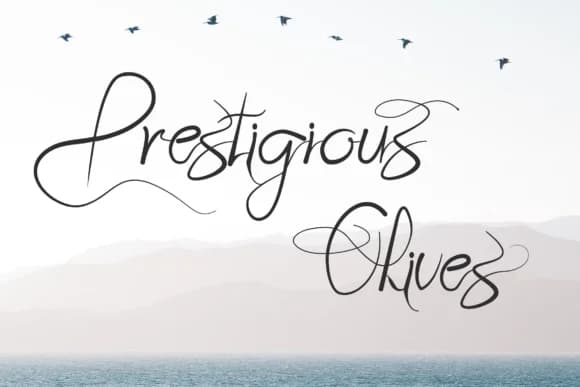
Jameela by Tigade std is a flowing handwritten script with a sophisticated, refined character that excels in fashion, beauty, and luxury branding contexts. The organic letterforms capture the natural warmth of genuine handwriting while maintaining the polish required for professional design work. This typeface communicates elegance without pretension, making it an instinctive choice for designers building high-end projects that demand a personal, distinctive visual presence and unmistakable authentic character.
Wedding invitation suites and reception stationery benefit immediately from its handwritten warmth and refined look, while movie poster lettering and signature-based logo designs showcase its distinctive character with real visual impact and memorable presence. Boutique cosmetics packaging and luxury jewelry branding gain instant credibility from the genuine human feel this script brings to premium design work. The letterforms stay readable at smaller scales while preserving the handwritten personality and organic flow that make script typefaces resonate deeply with audiences seeking authenticity paired with genuine polish and craftsmanship.
The script performs reliably wherever quality matters in design. If you're building anything that needs genuine sophistication combined with human warmth, Jameela delivers that balance effectively. Find it on Creative Fabrica and add it to your collection.
Jameela Font is a script font that shines as a display or heading face. Pair it with a clean sans-serif or serif font for body text β the contrast creates a clear hierarchy while the two styles stay balanced and easy to read.
Jameela Font
by Tigade std